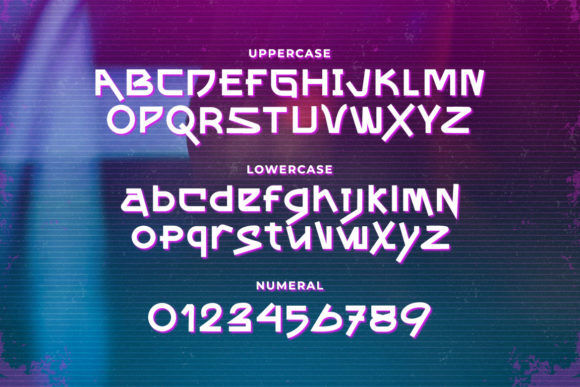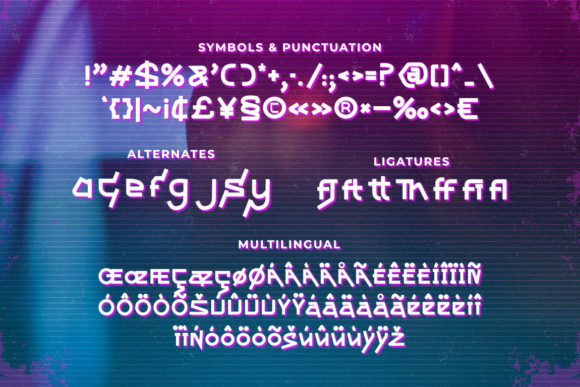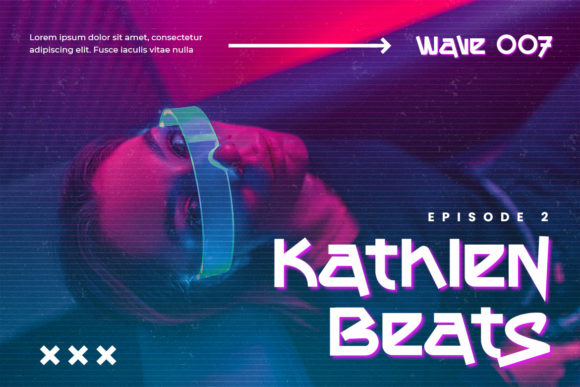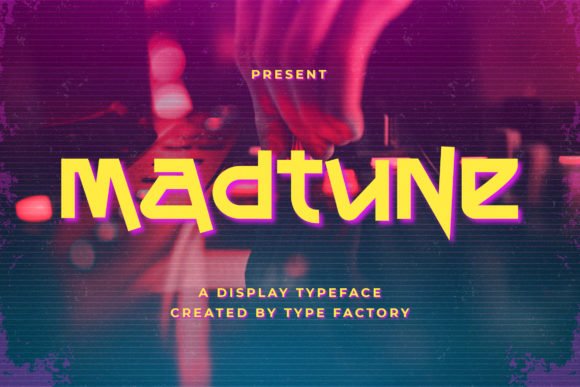
Introduction to Madtune Font
Madtune is a futuristic display font perfect for techno themes, nightclubs, Science Fiction films, music album covers, and many more.
Fall in love with its incredibly versatile style, and use it to create spectacular designs .
Key Features of Madtune Font